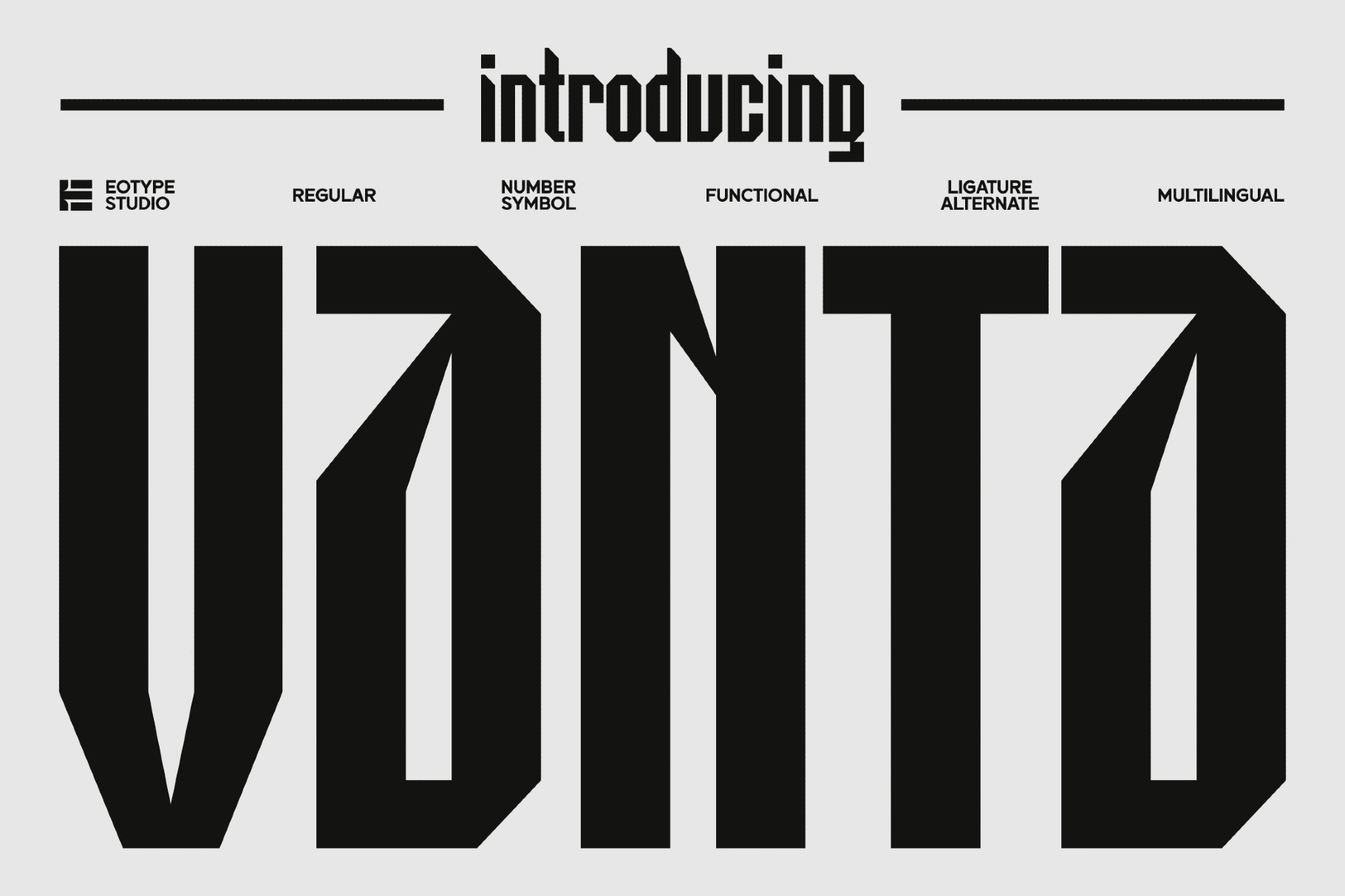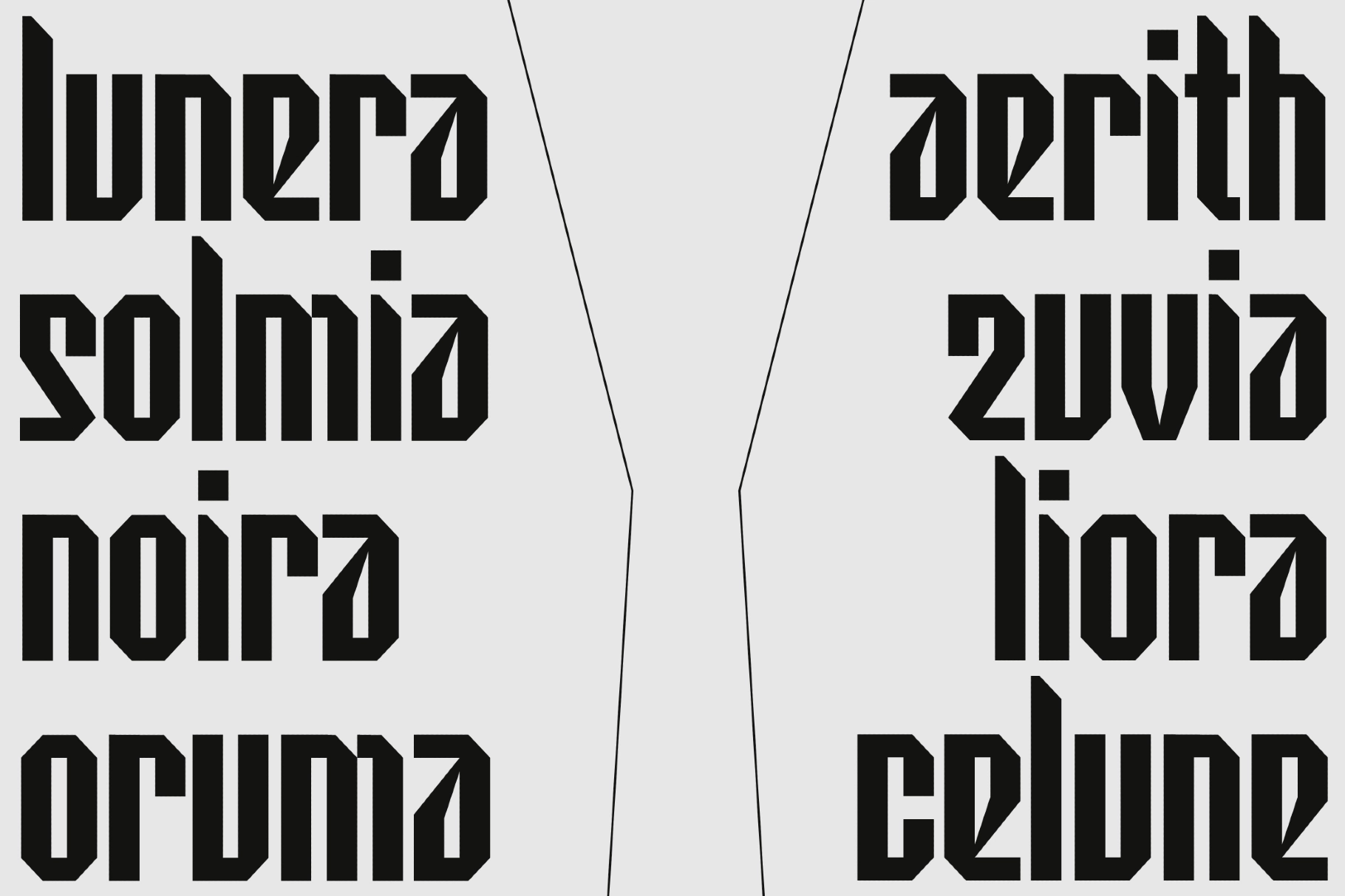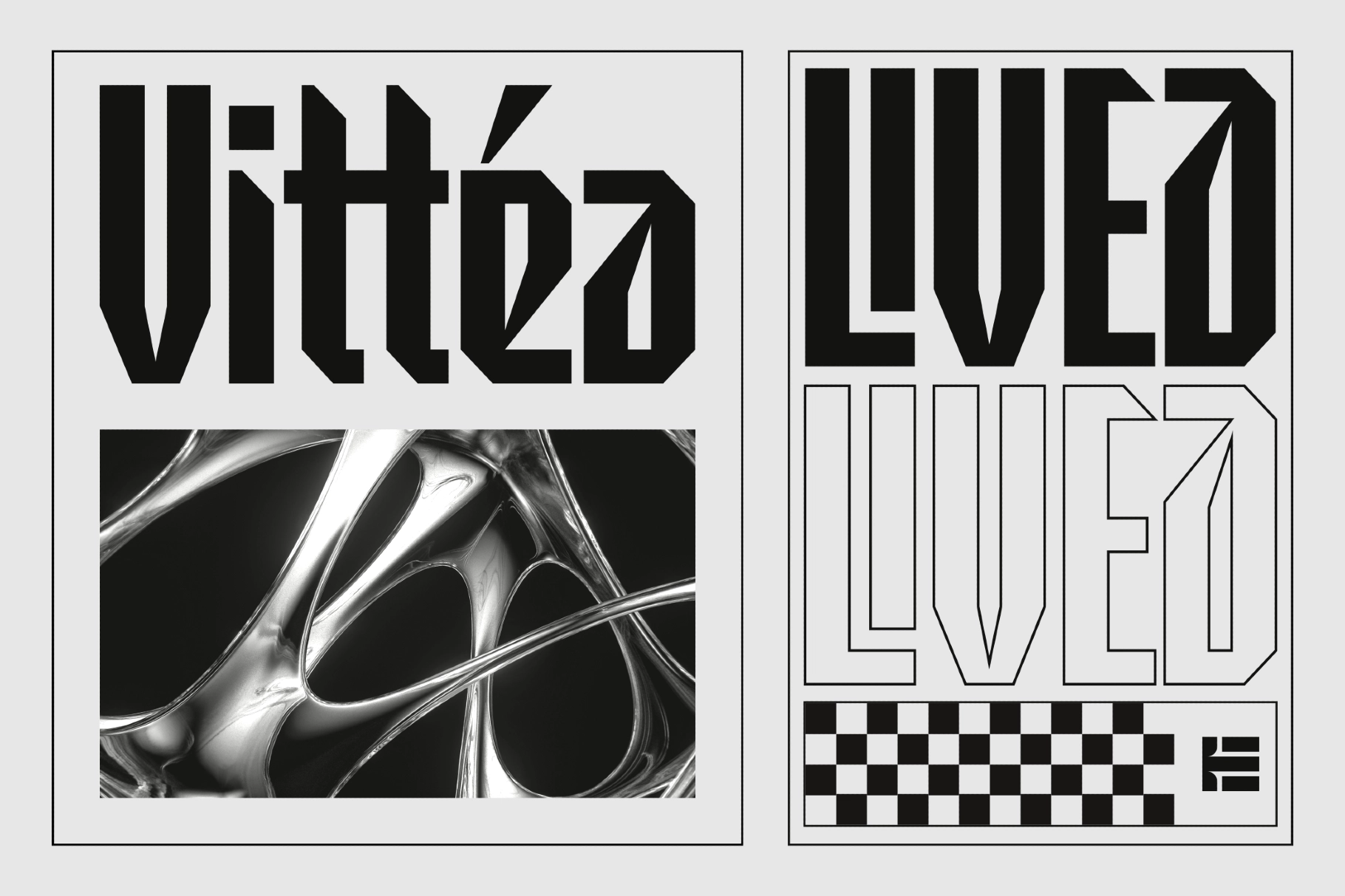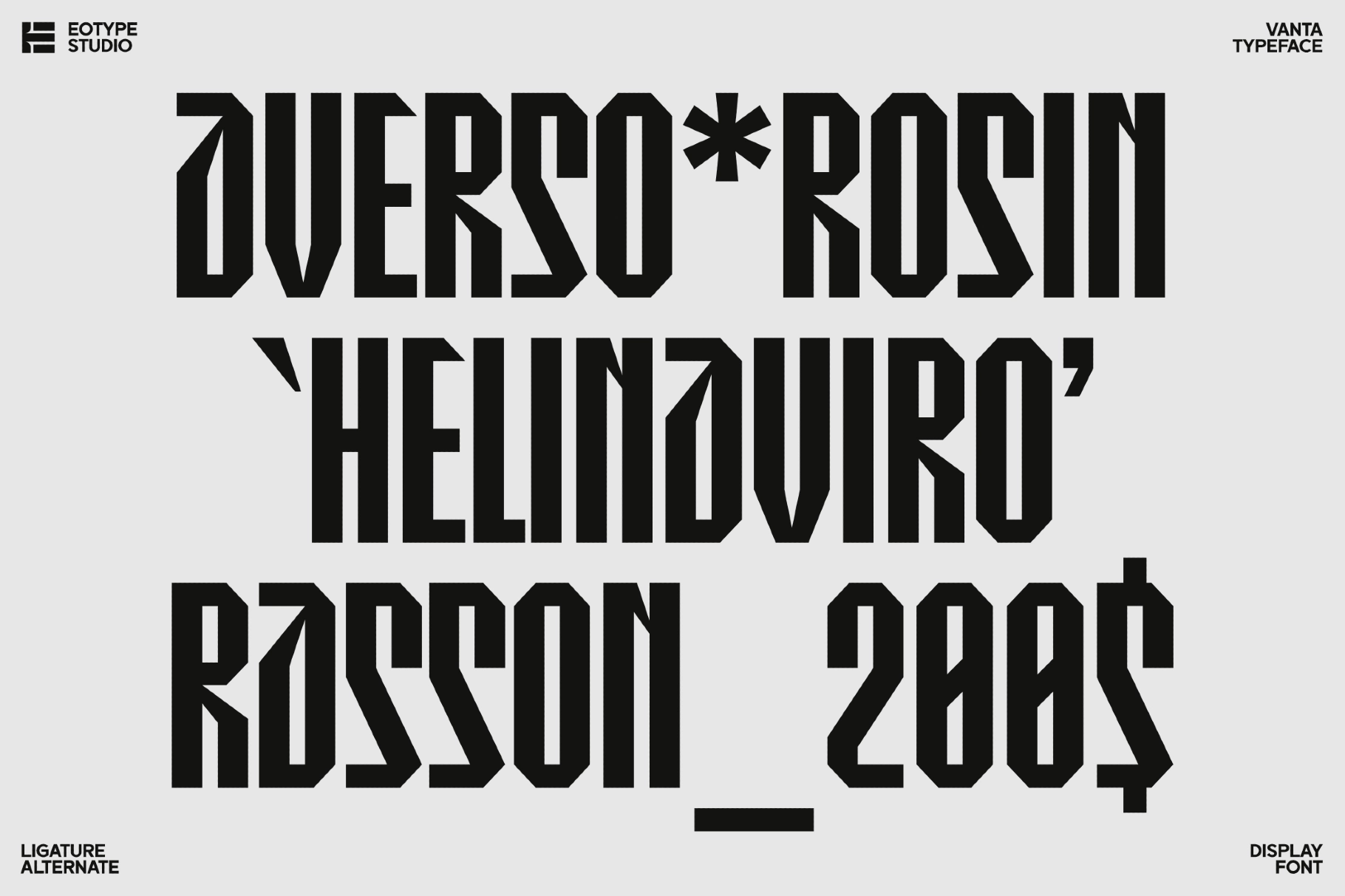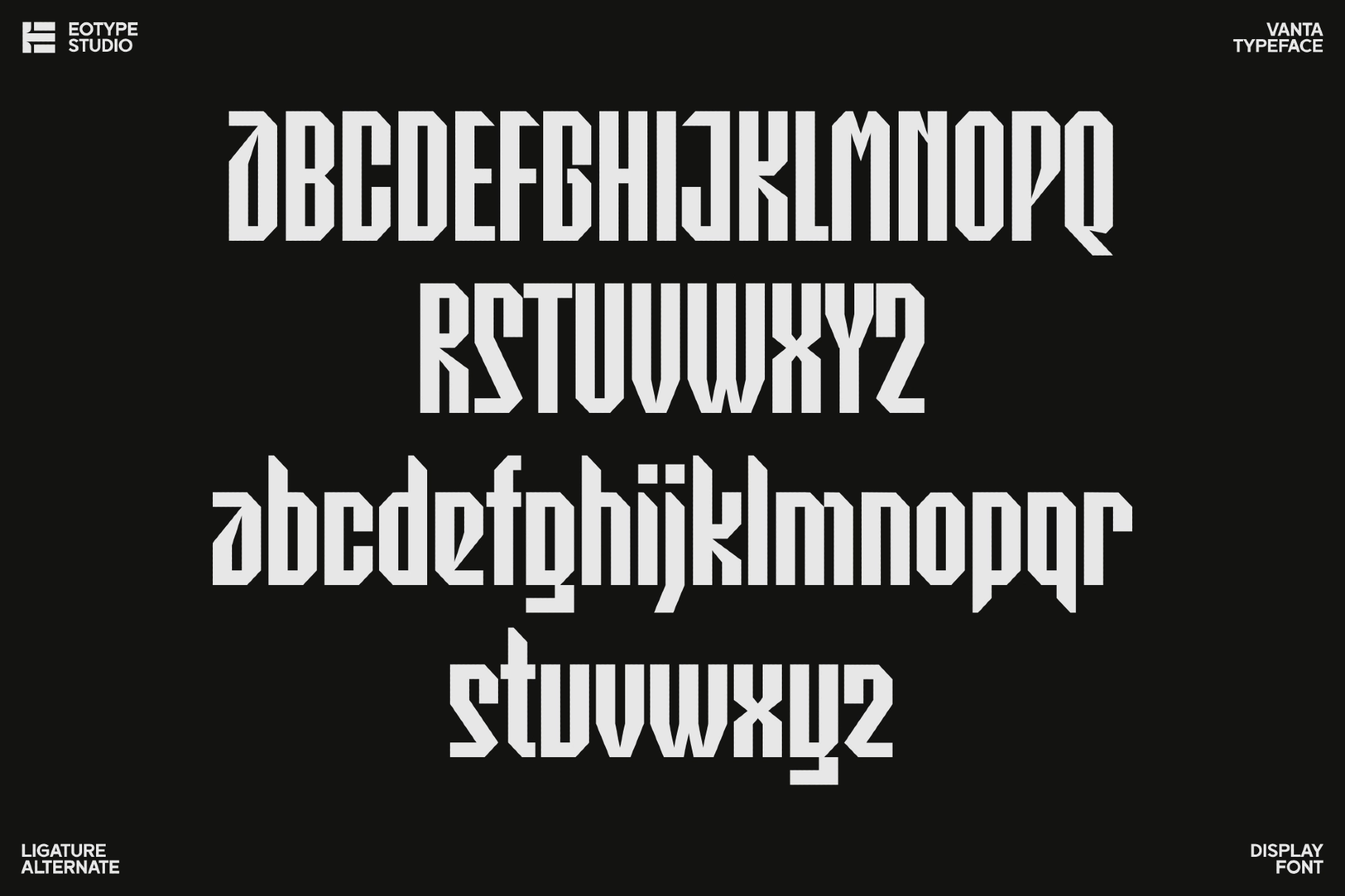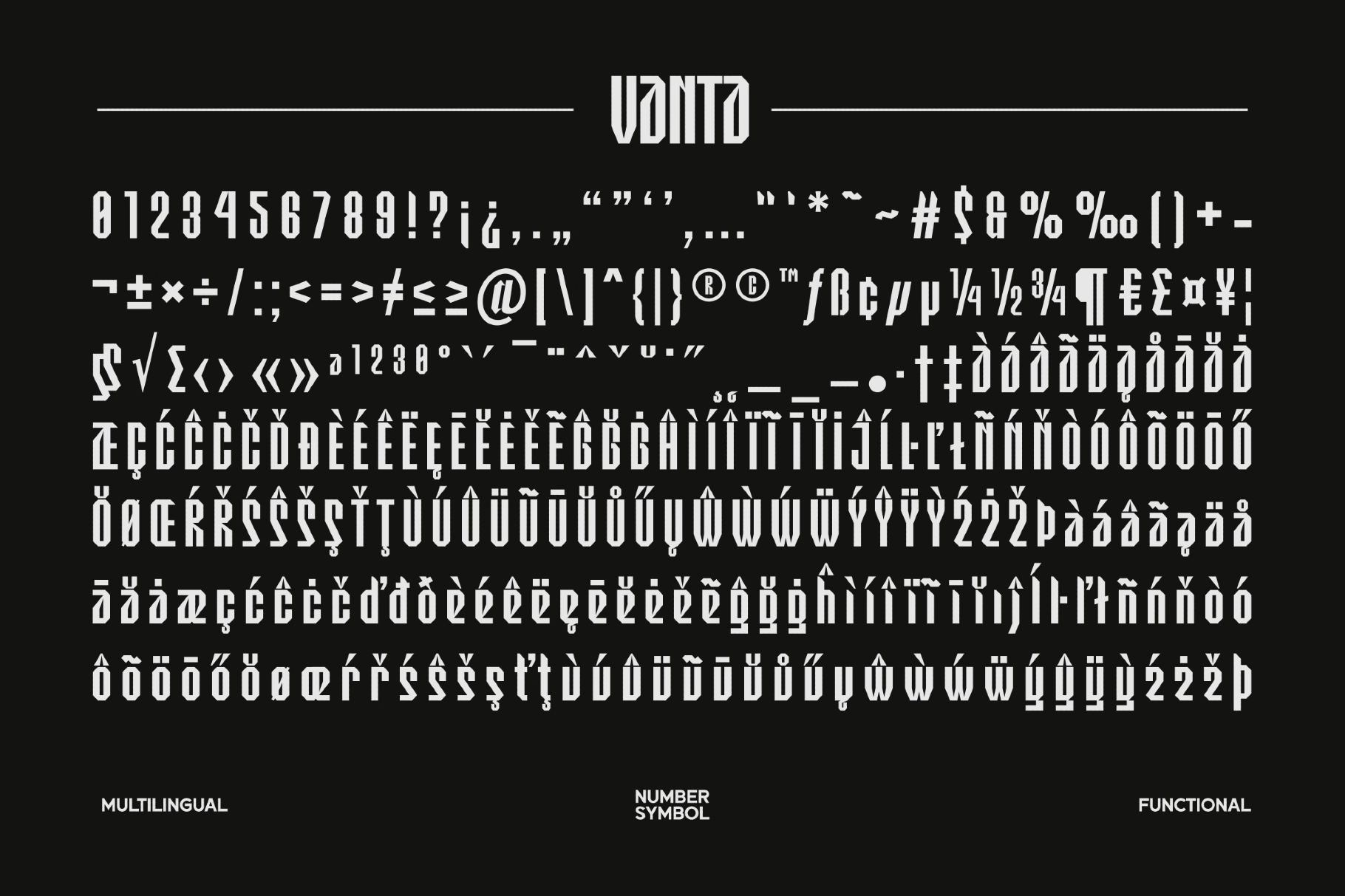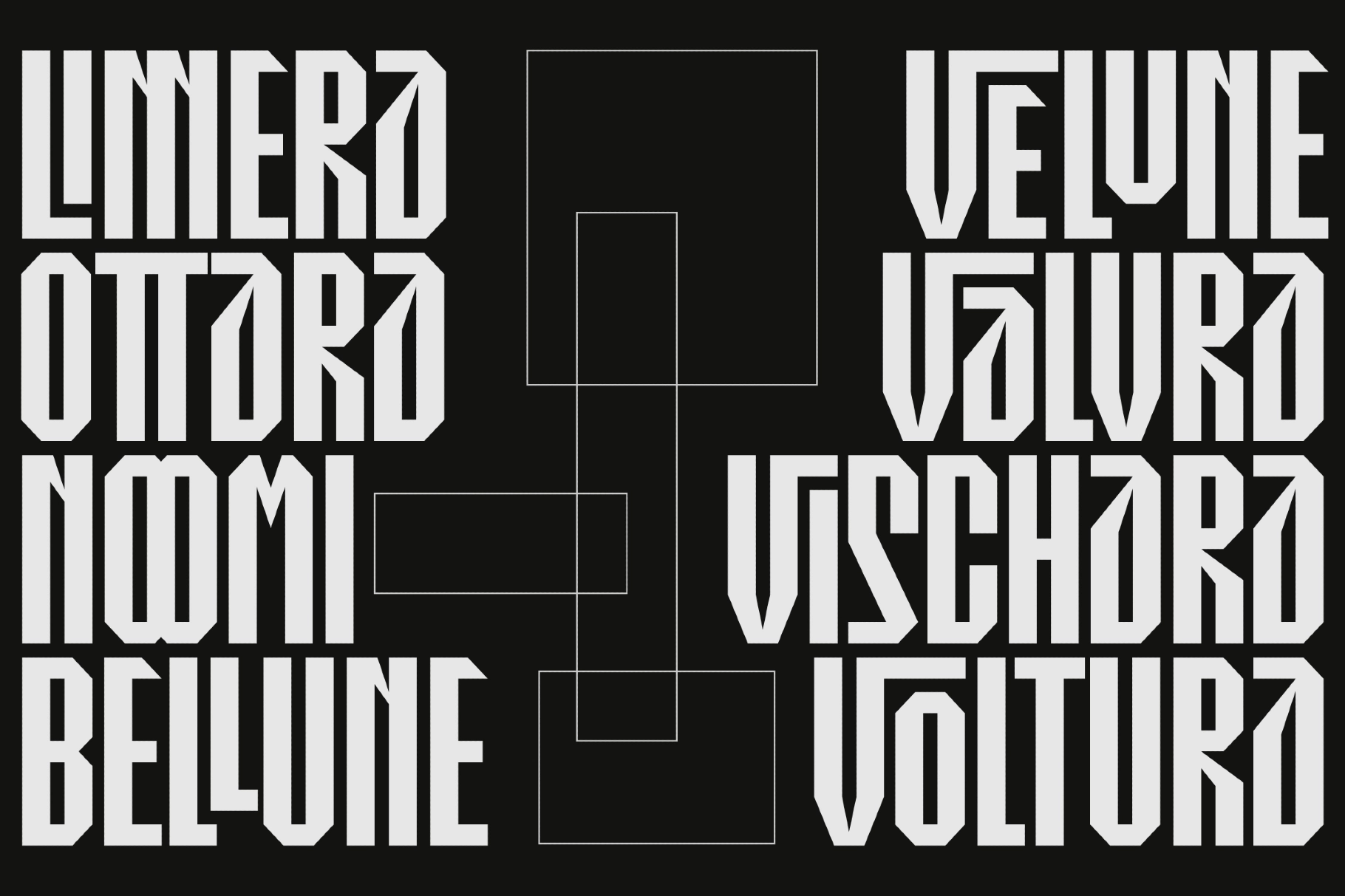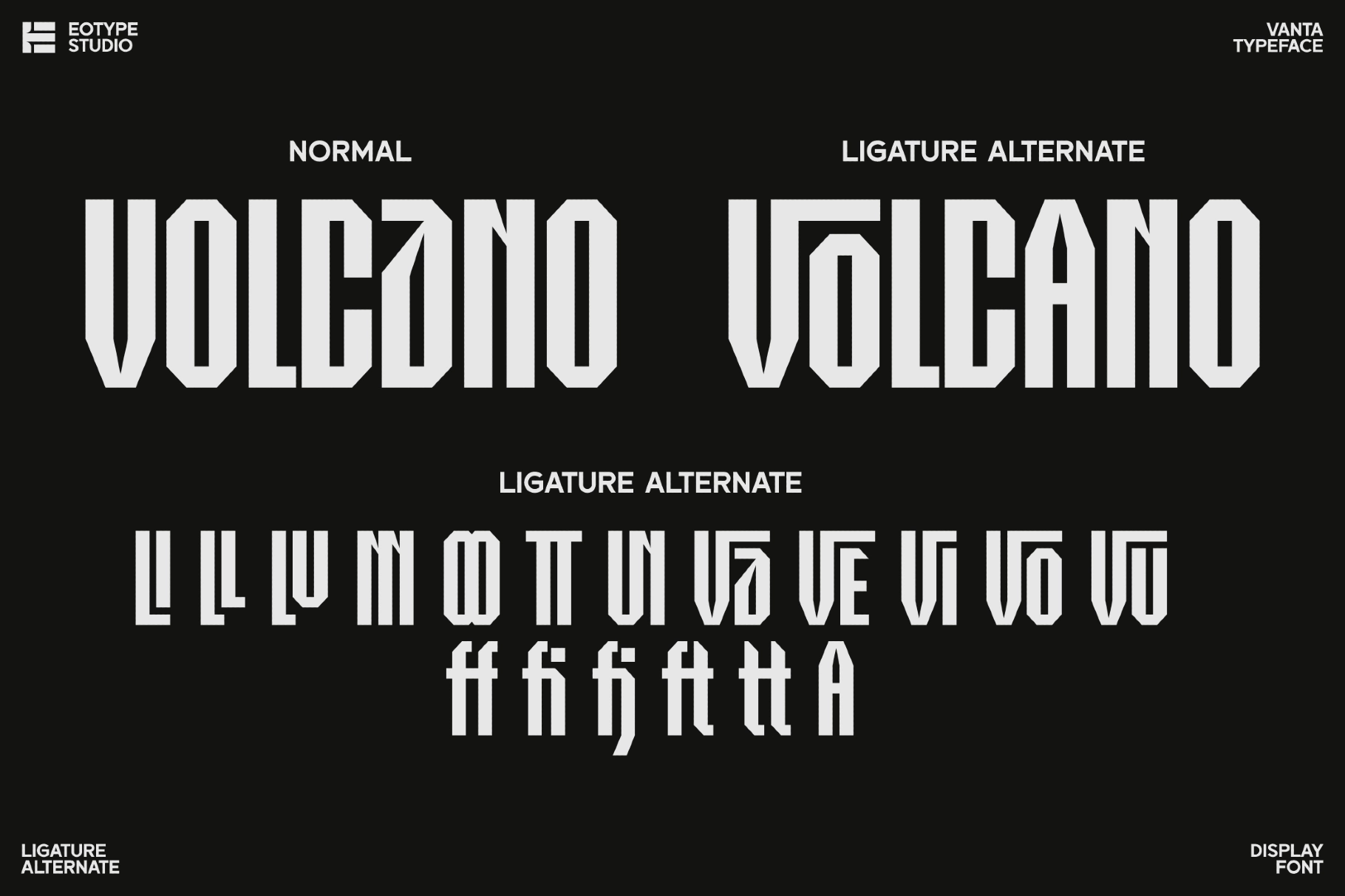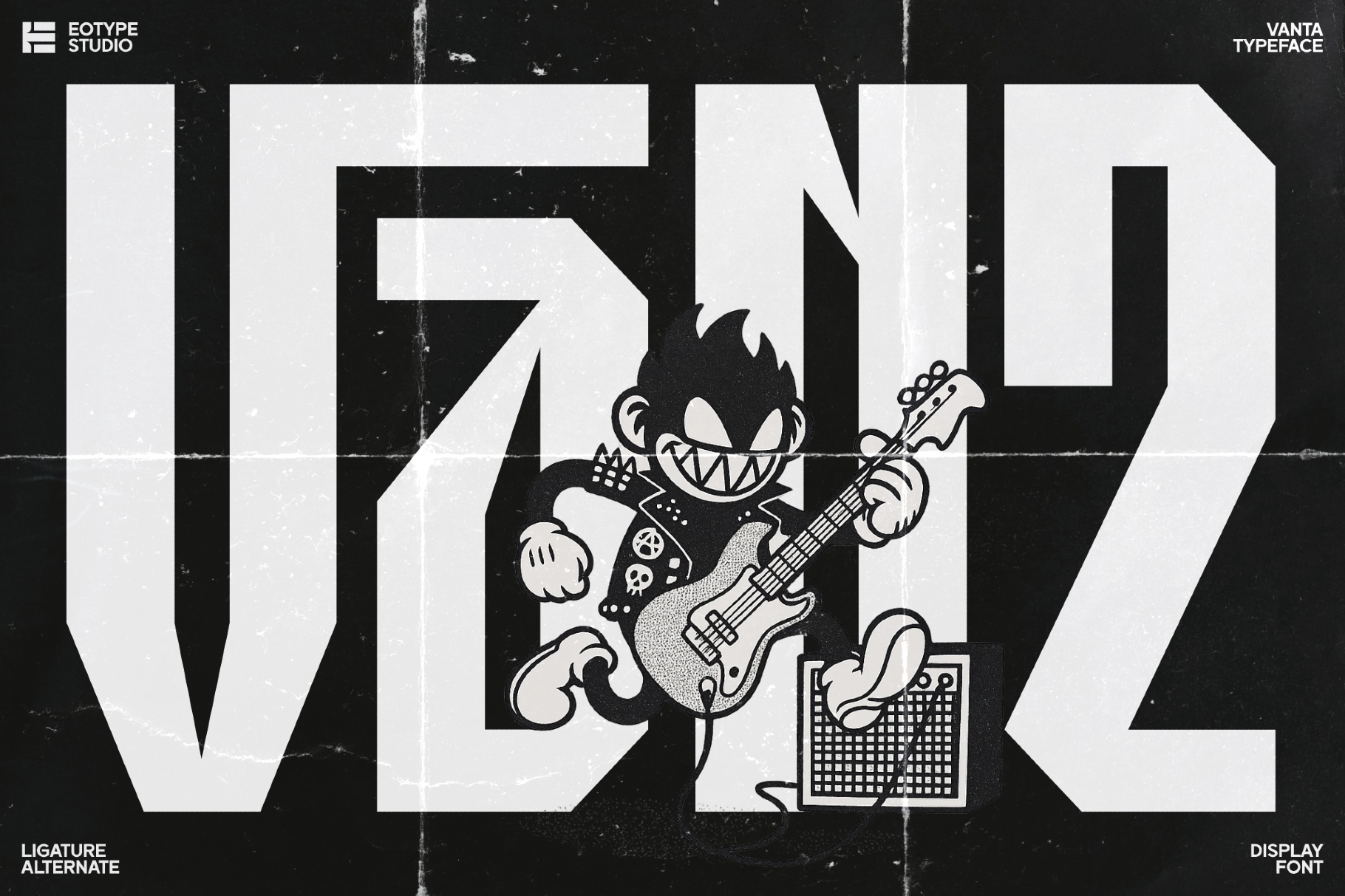
Vanta - Display Blackletter Font
Vanta
This blackletter-inspired display typeface is sharp, heavy, and architectural, with tall proportions and angular cuts that give every letter a severe graphic presence. The style has a futuristic edge, but the structure is controlled enough for strong headlines, logos, and identity work.
Vanta works well for streetwear branding, music posters, album covers, esports graphics, tattoo-inspired lettering, editorial titles, product packaging, barbershop logos, event flyers, merchandise, motion graphics, and festival visuals. It is made for designs that need bold contrast, hard geometry, and a dramatic typographic voice.
- Unique Ligatures & Alternates